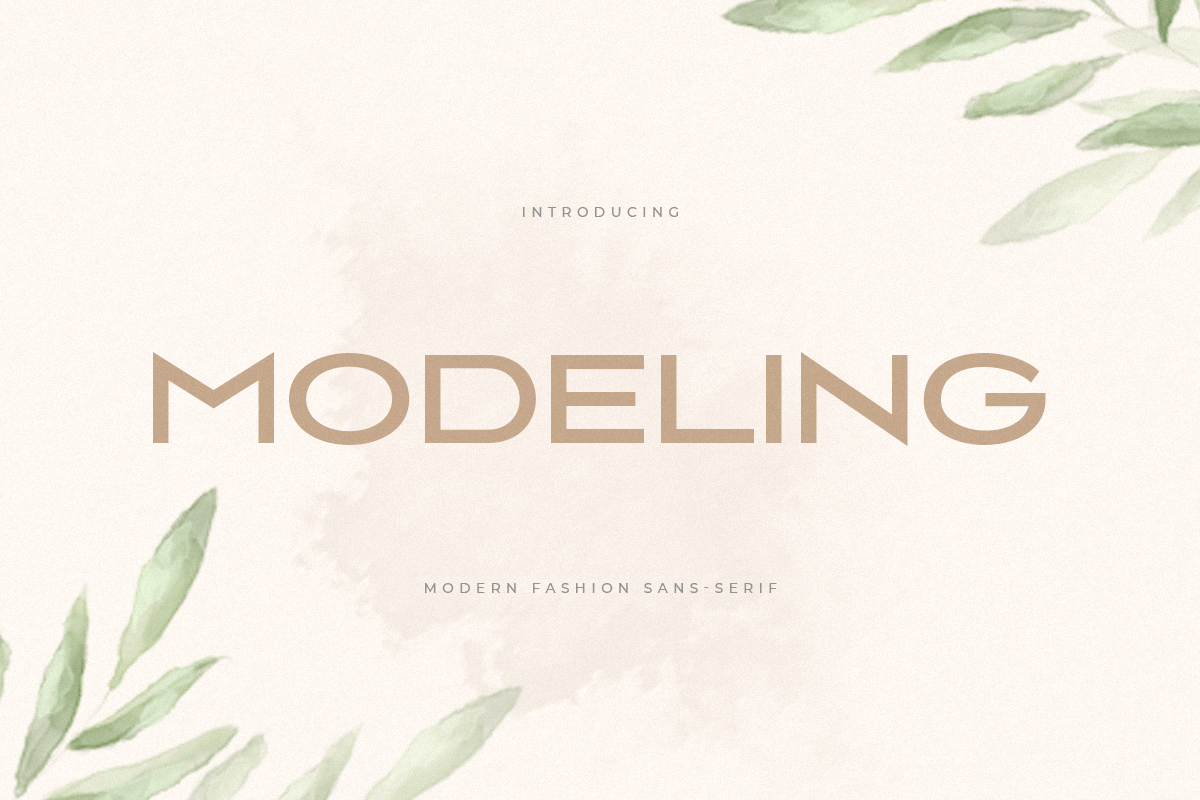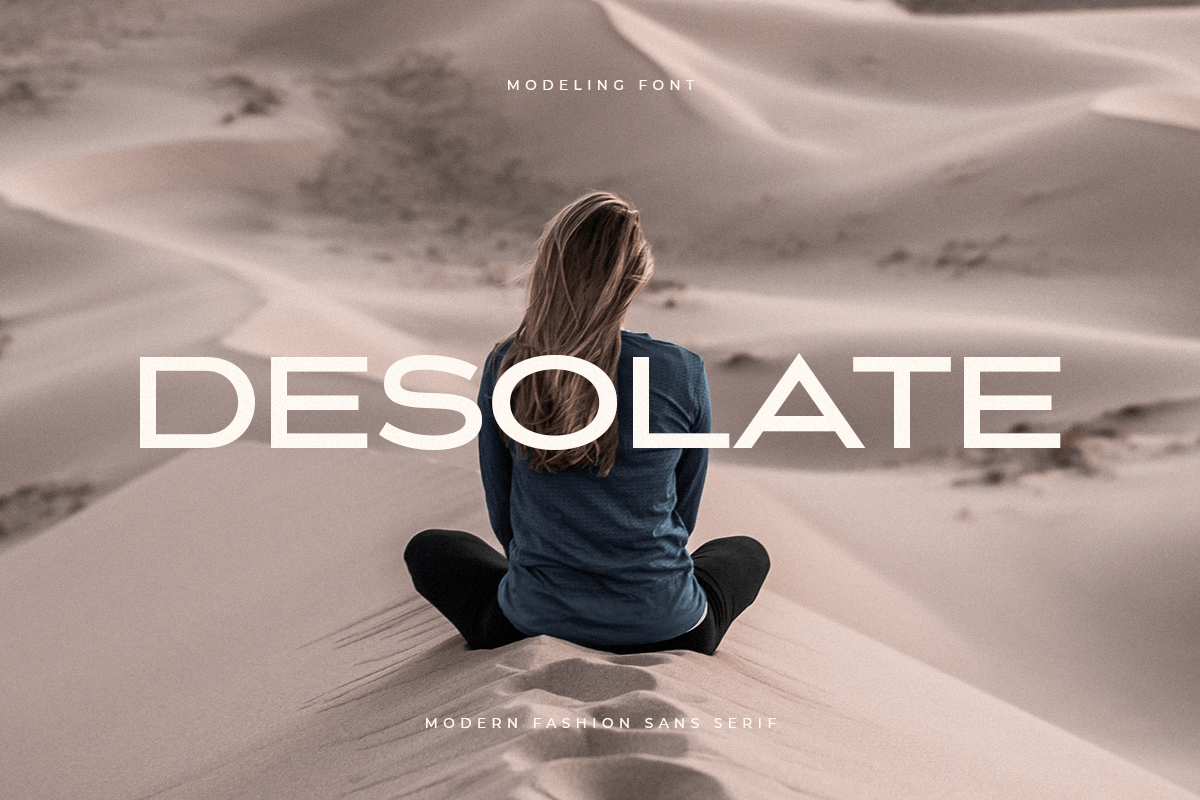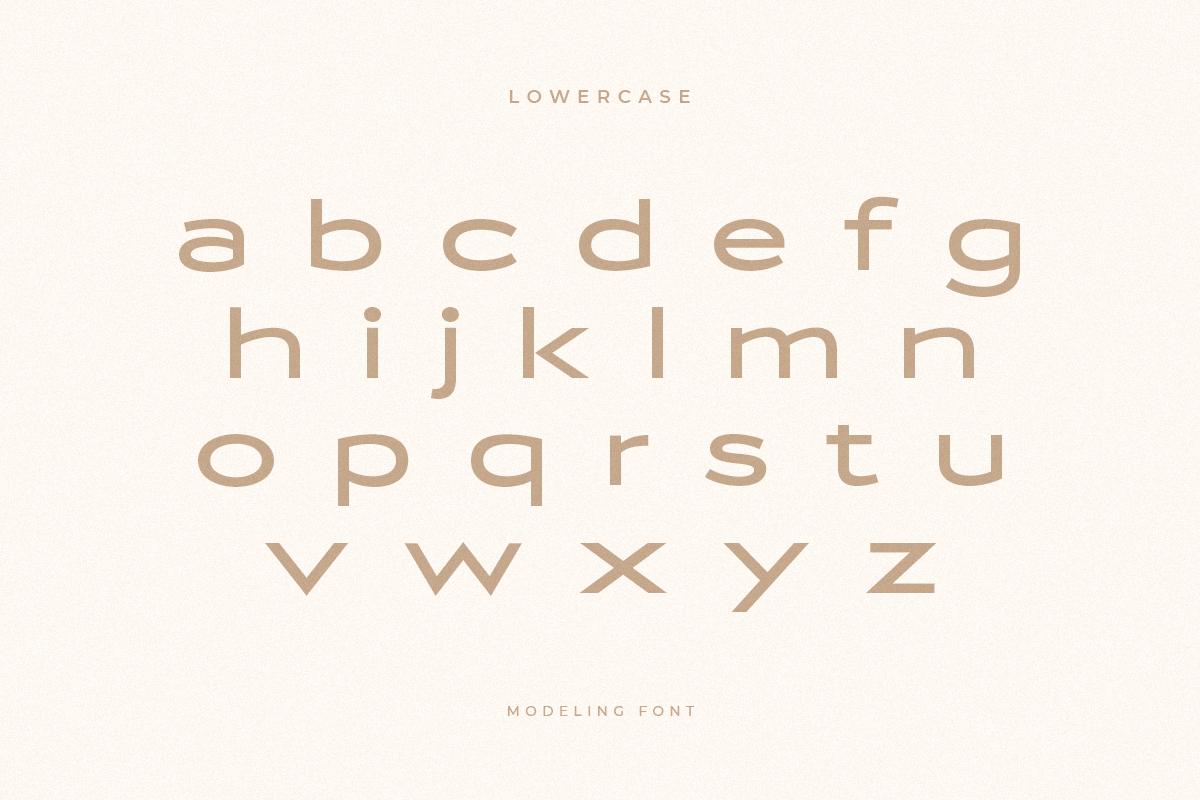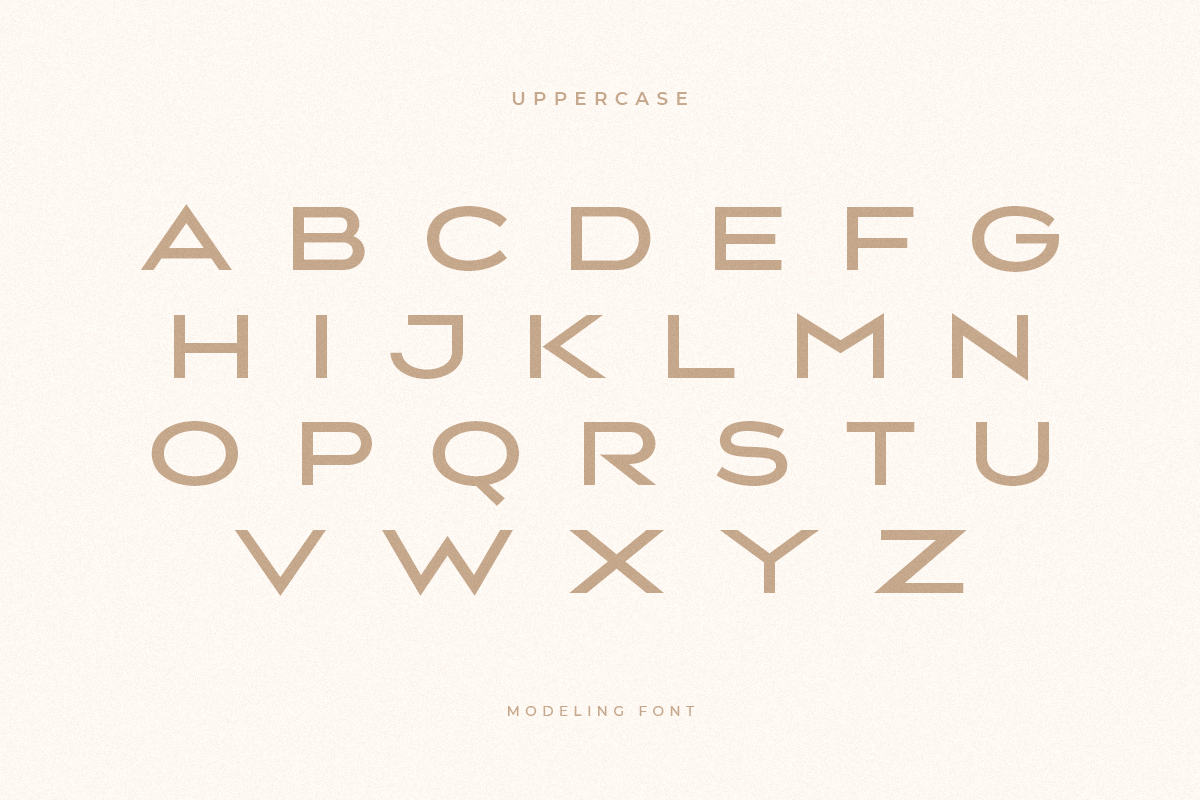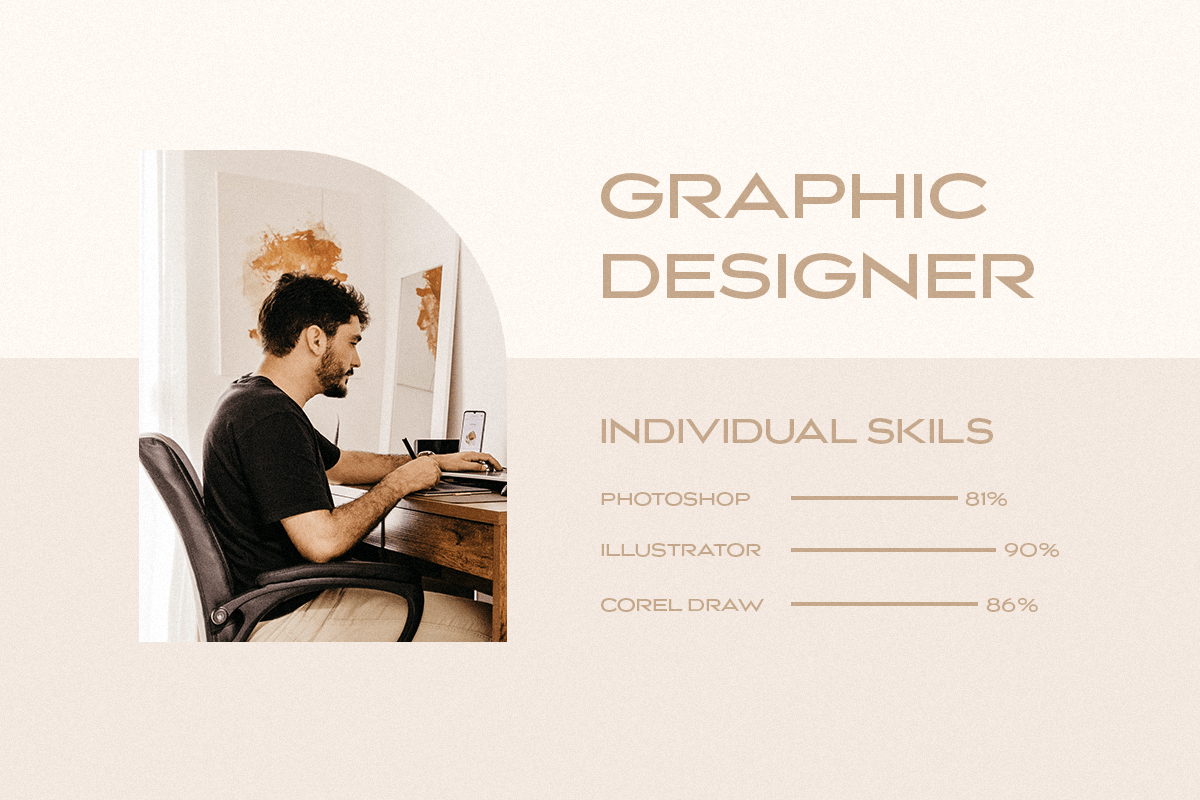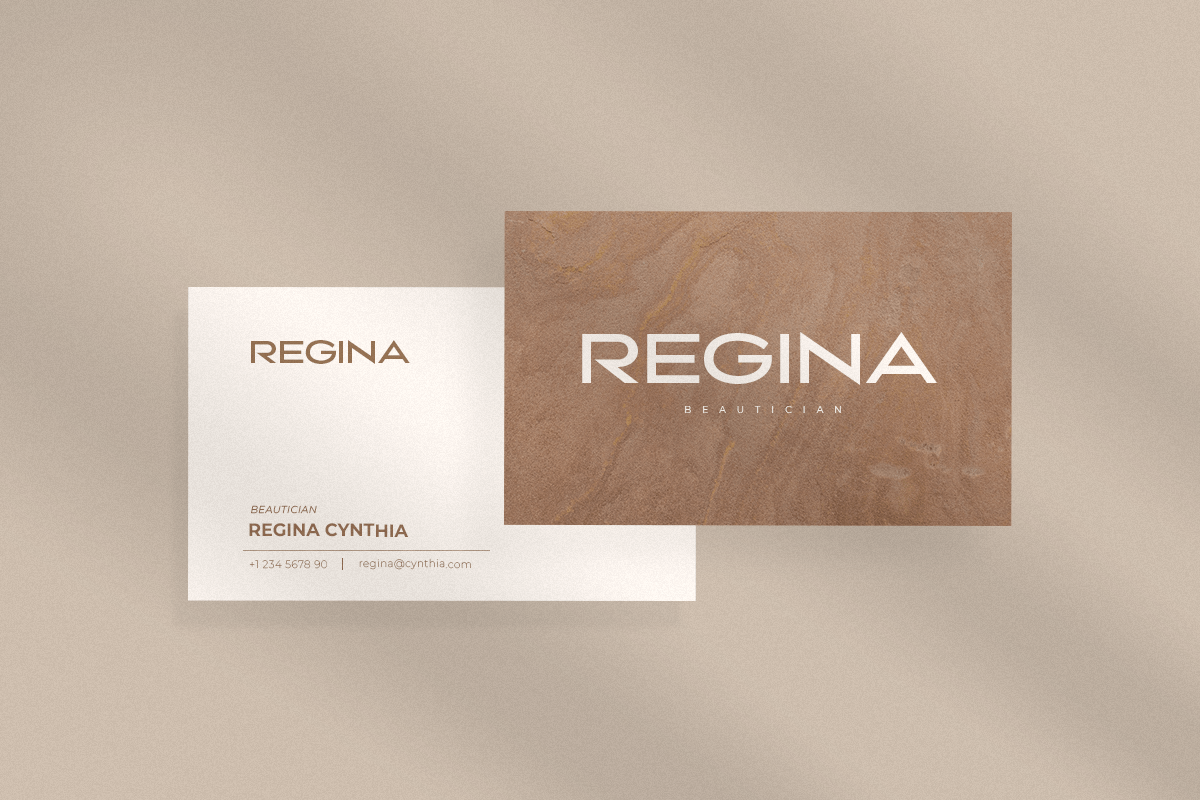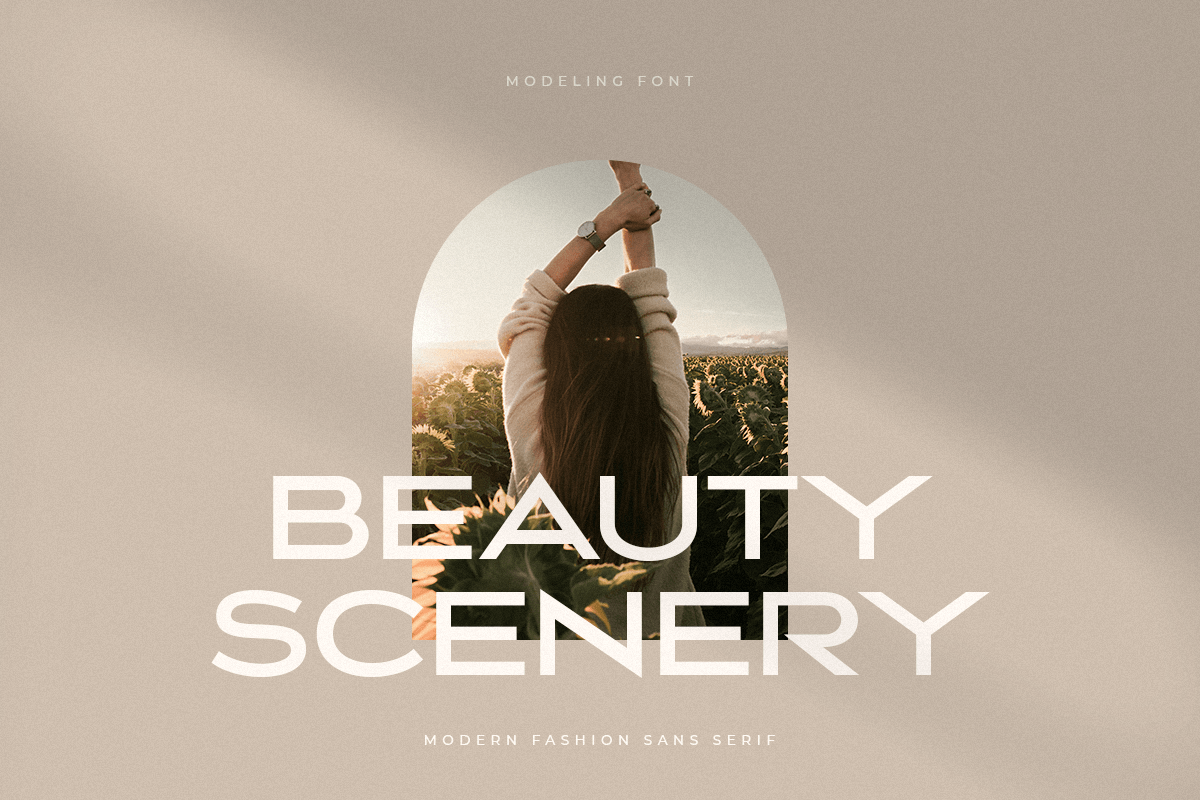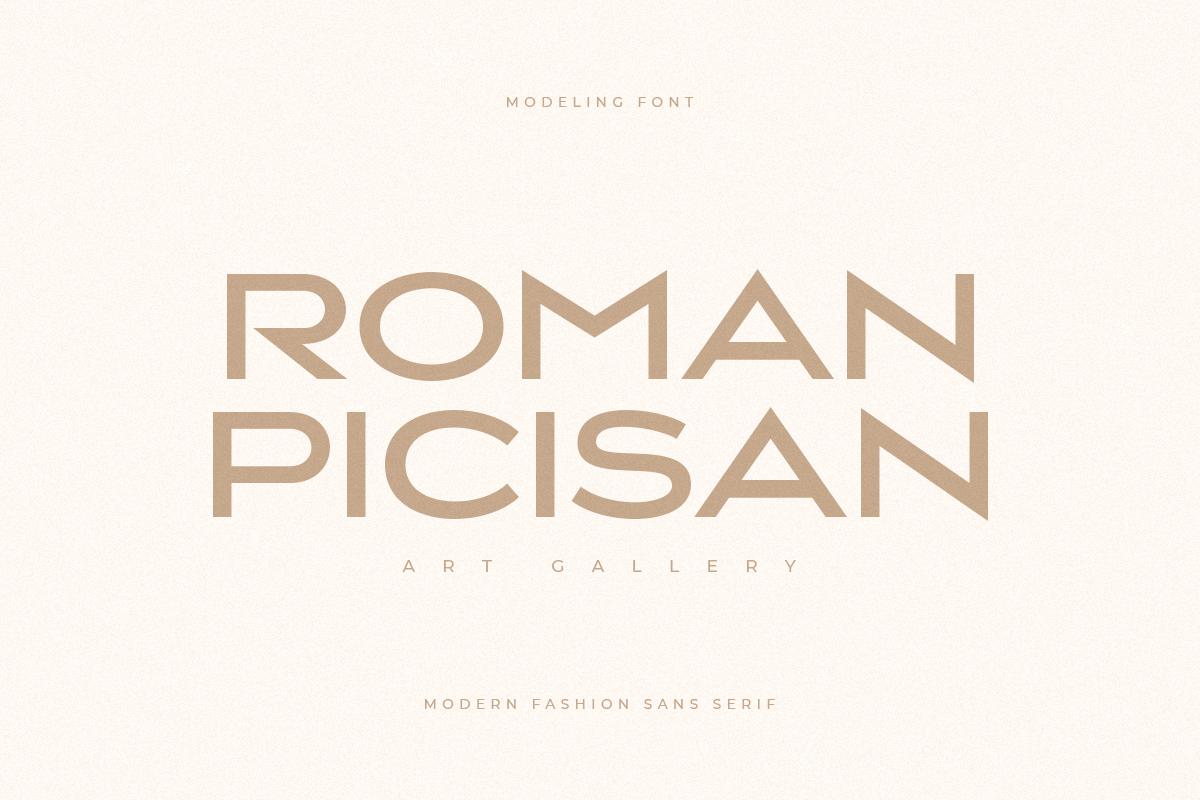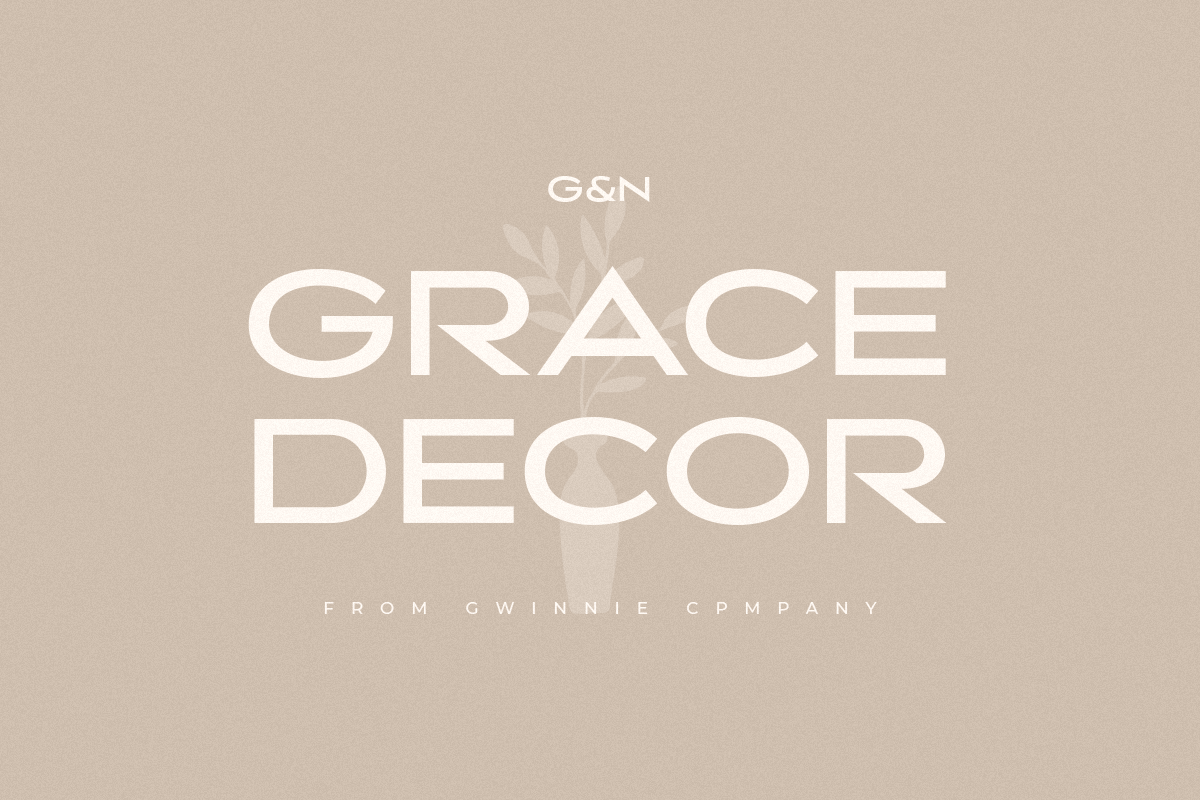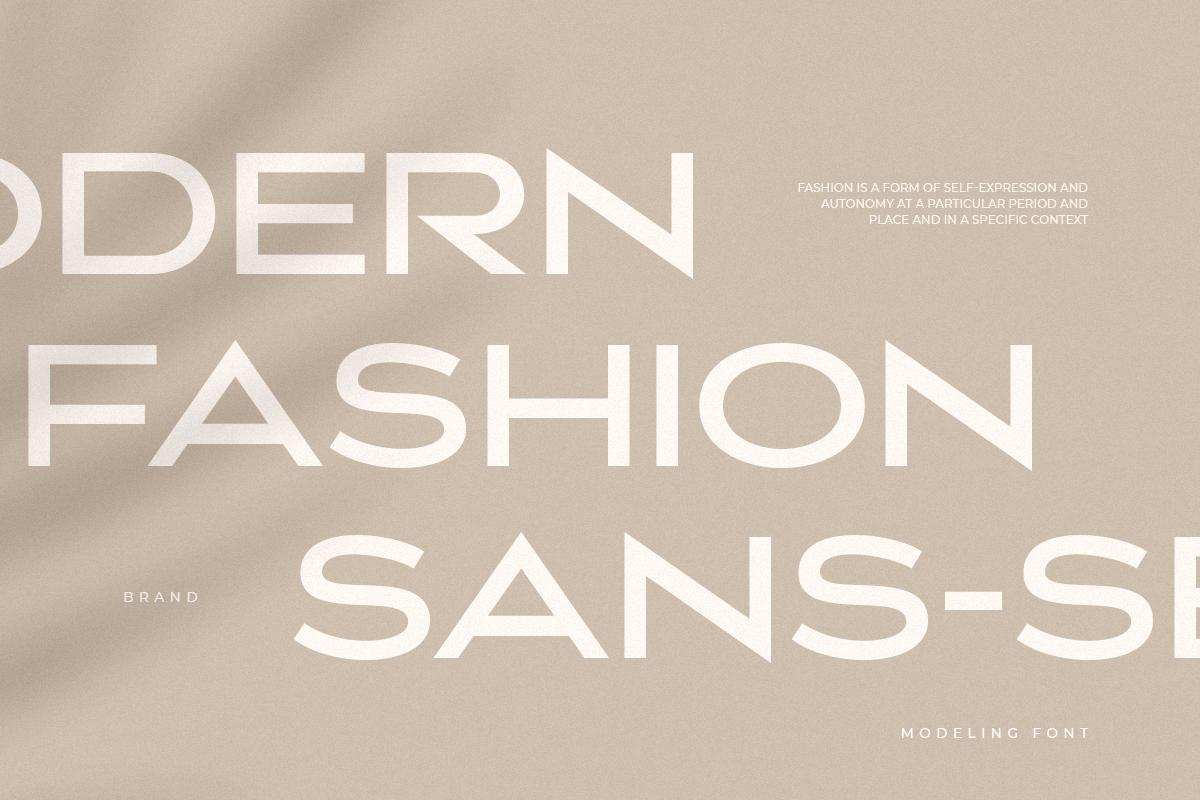
Modeling
-Modern Fashion Sans Serif
Modeling
Modeling is a Modern Fashion Sans Serif
In a new generations, we analyze that any designer or brand owner need to make their brand standout. As our focus that analyze any typeface that helps to leverage any logo design to look more modern, fashionable and unique. We prepared this font with expanded style characters to help you create a classy branding in any projects.